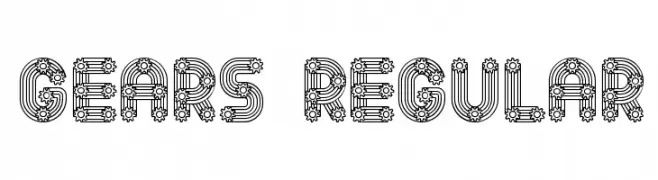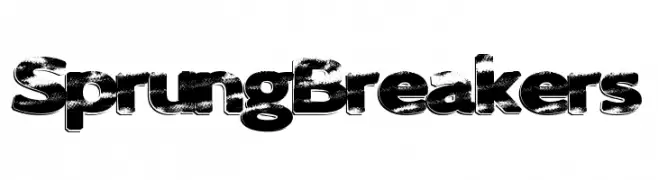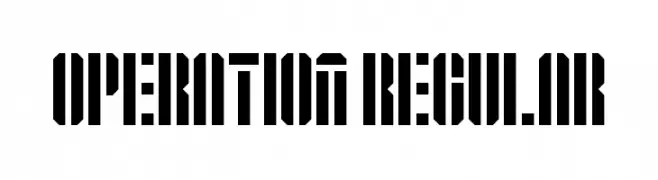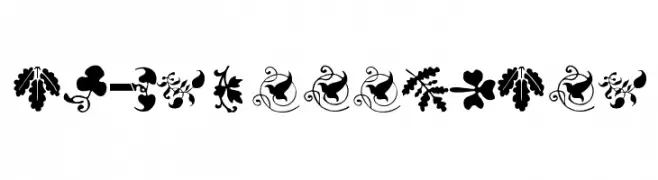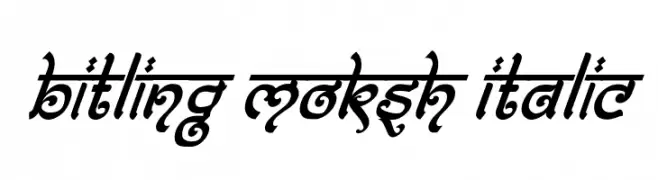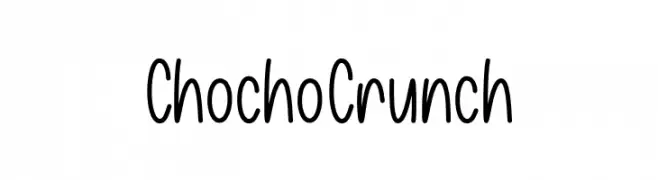
A playful and whimsical font with bold, dynamic letterforms and quirky design elements.
A decorative font with mechanical gear elements and intricate line work.
A bold, distressed font with a 3D effect and textured appearance.
A bold, geometric font with an industrial, stencil-like design.
Ornamental dingbat font with floral and botanical motifs.
An artistic italic font with flowing, interconnected letterforms and decorative flair.
Playful handwritten font with rounded edges.
A serif font with a stitched, decorative outline for a crafty, vintage look.